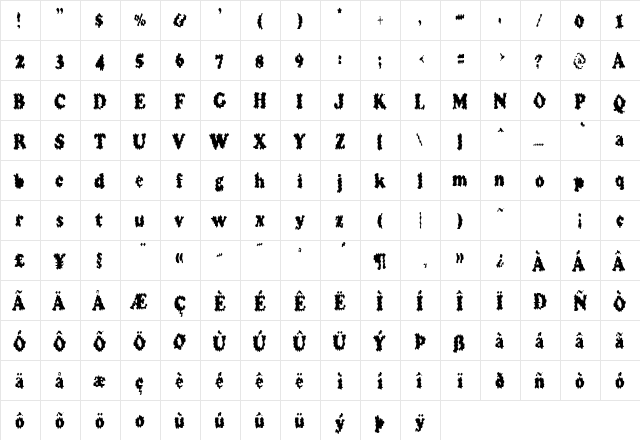
TooMuchCoffee Regular
Design Context for TooMuchCoffee Typeface
TooMuchCoffee takes a measured approach to typography — its balanced proportions and neutral character make it a reliable workhorse for both digital and print work.